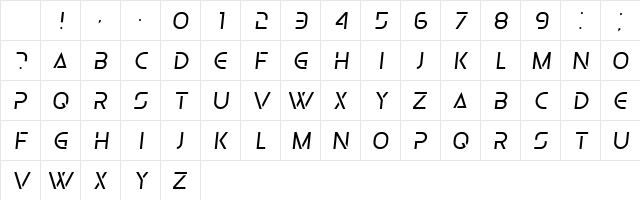
Olga is a composed and adaptable typeface that performs quietly and consistently across a wide range of design contexts. The slanted form adds forward momentum and visual energy. Its slender proportions lend an understated elegance to any composition.